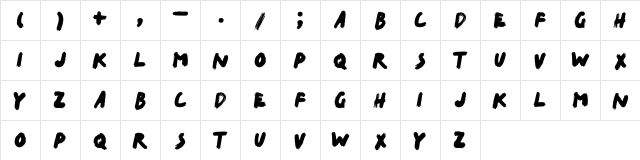
TitleBrushXL flows with the natural rhythm of handwritten lettering, making it ideal for designs that call for warmth and personal expression. Its bold stroke weight gives it real presence on the page.
Font Pairing: Combine TitleBrushXL with a simple geometric sans for maximum contrast - the tension between flowing curves and clean structure is a classic typographic pairing.
Pro Tip: Use TitleBrushXL for short runs of text - names, titles, or taglines. Extended body copy in script faces tires the eye quickly.